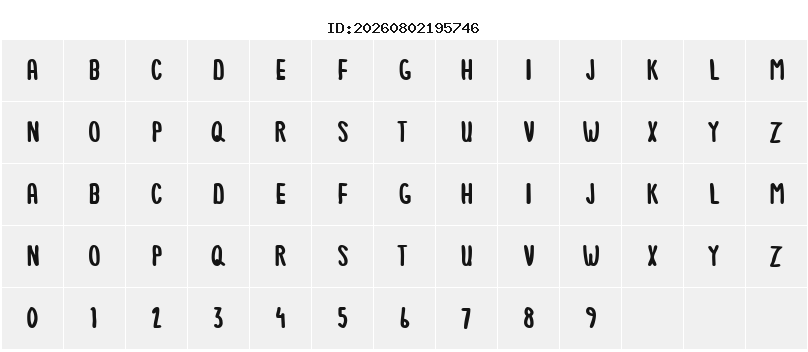
• Font Name: Note To Self
• Full Font Name: Note To Self
About Note To Self.ttf
Note To Self.ttf is a modern, elegant sans-serif font designed for ultimate readability and visual harmony. Perfect for branding, headlines, web design, and print materials.